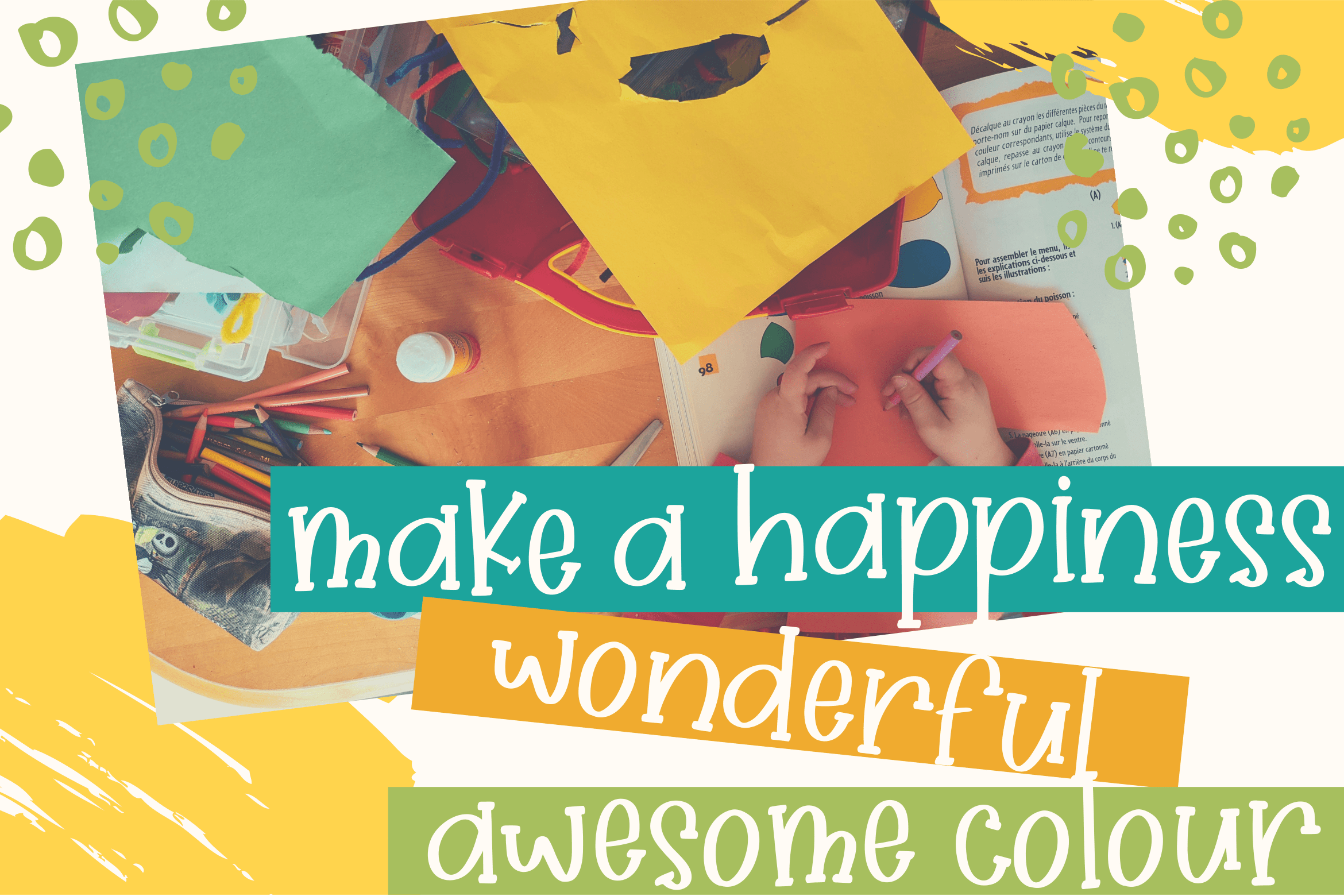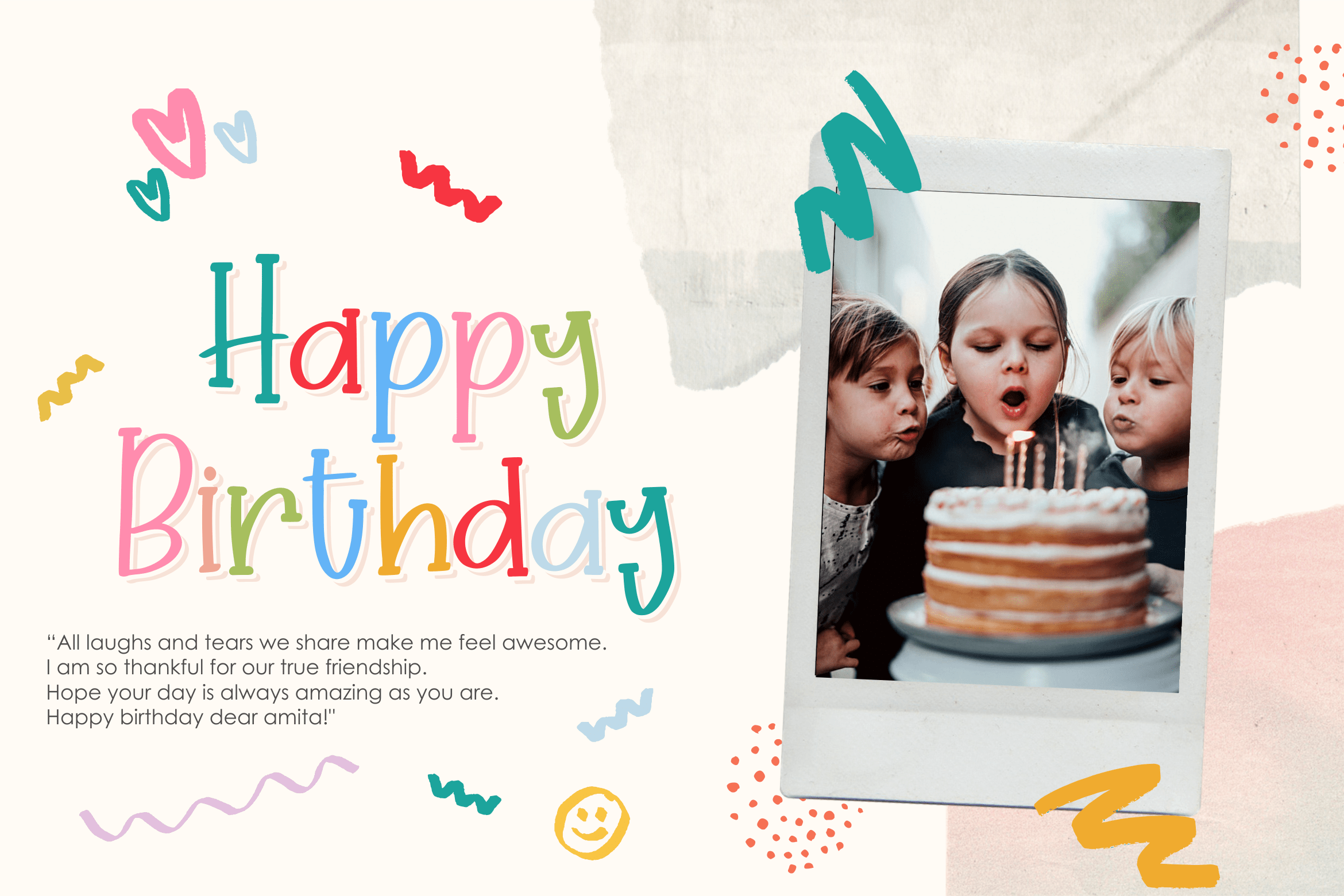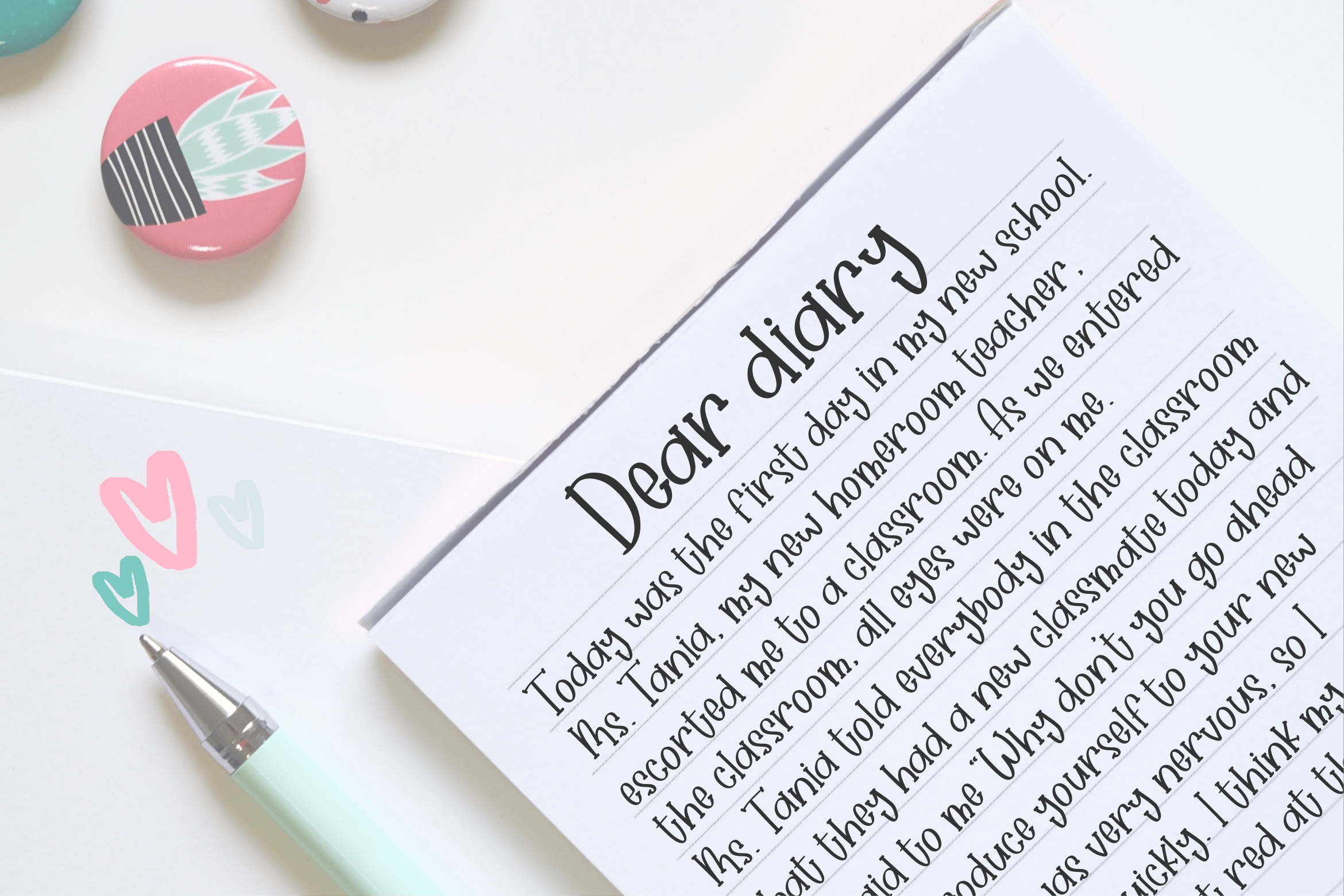
Hallow Spire Font
Hallow Spire Display Font
It’s a tall & spooky handwritten font. Hallow Spire is a stylish display font for a variety of designs. Hallow Spire can be used for products such as handcraft, product packaging, quotes, product design, craftsmen, labels, photography, watermarks, logos & branding.